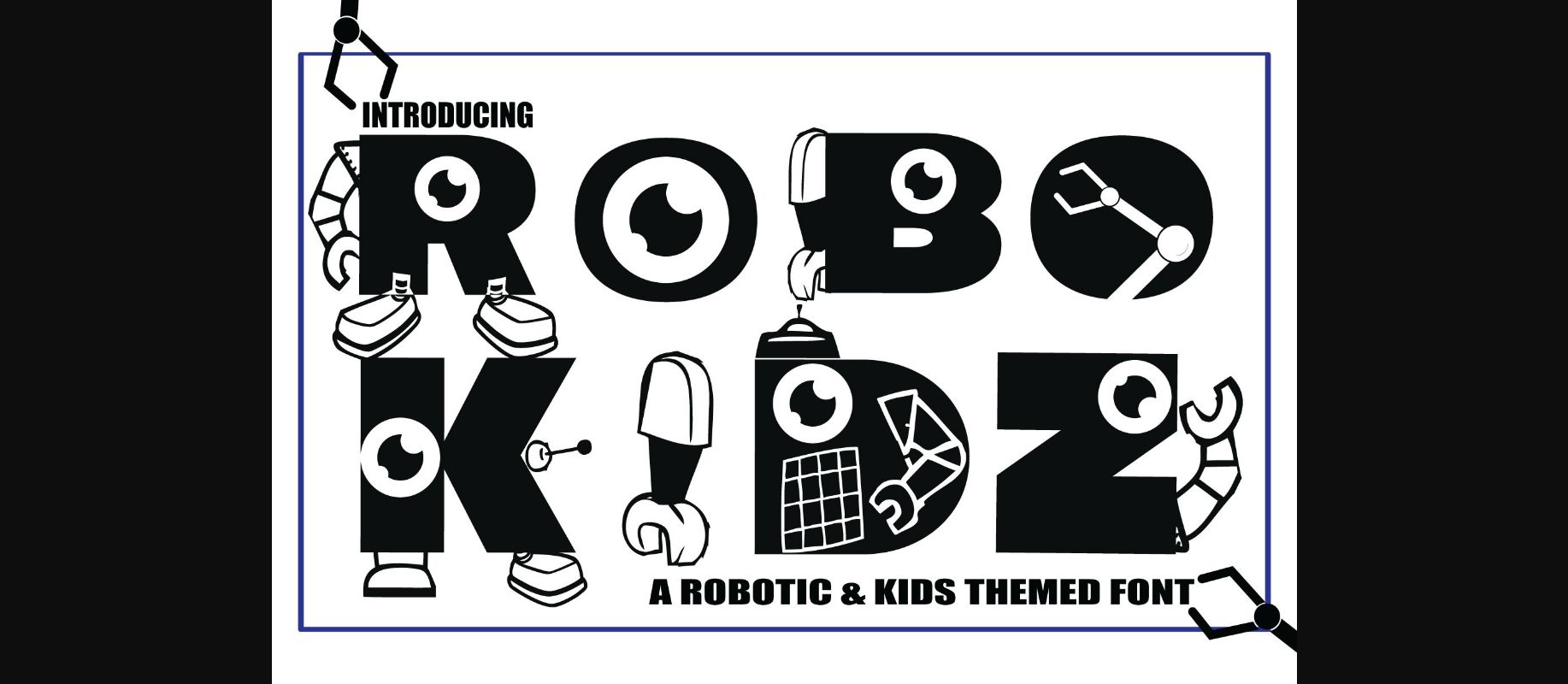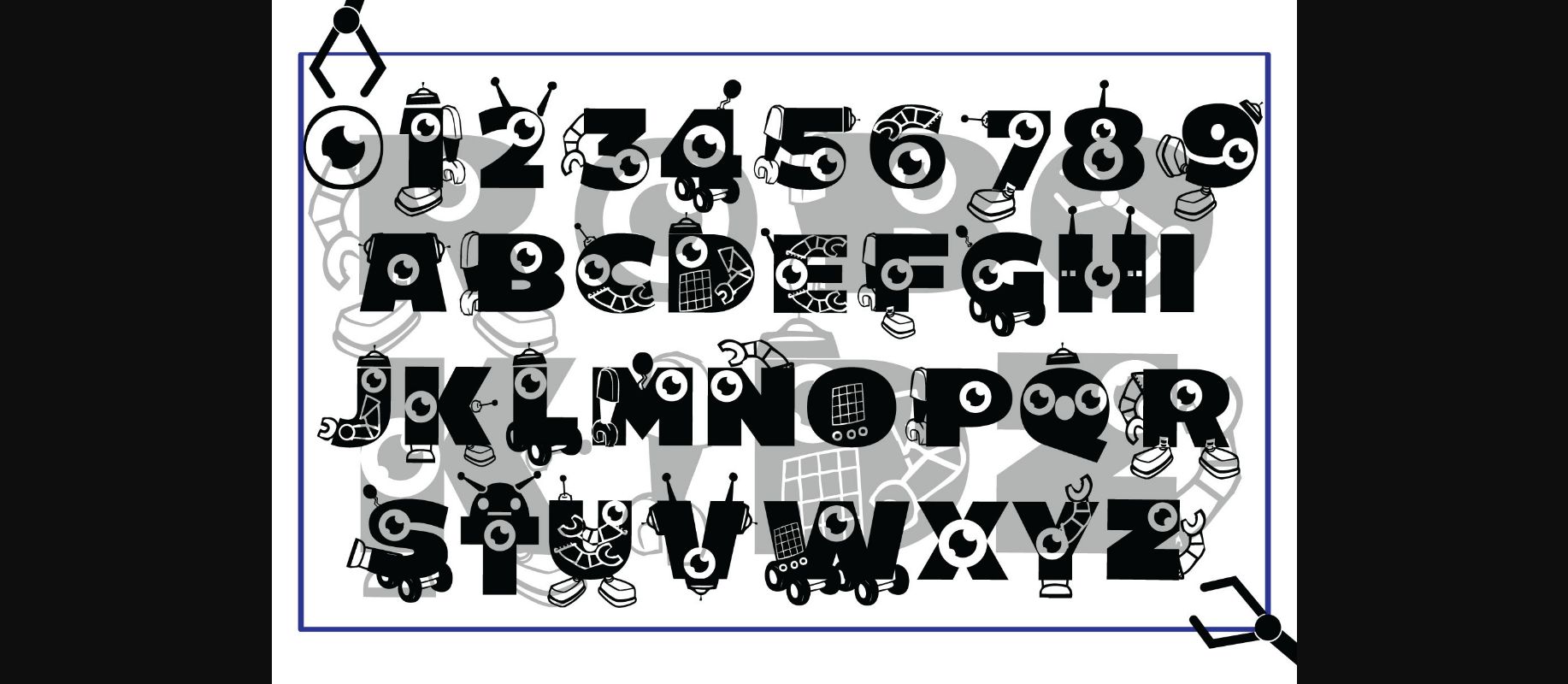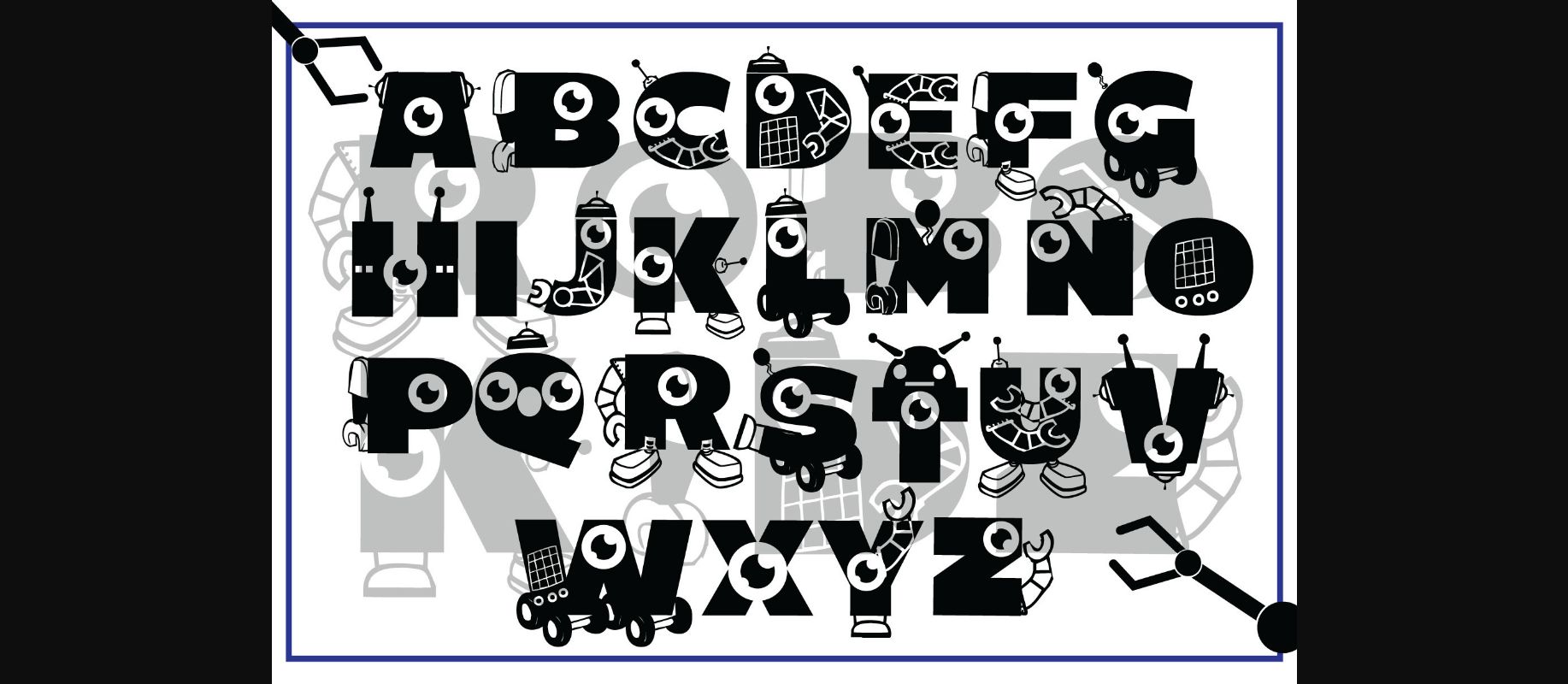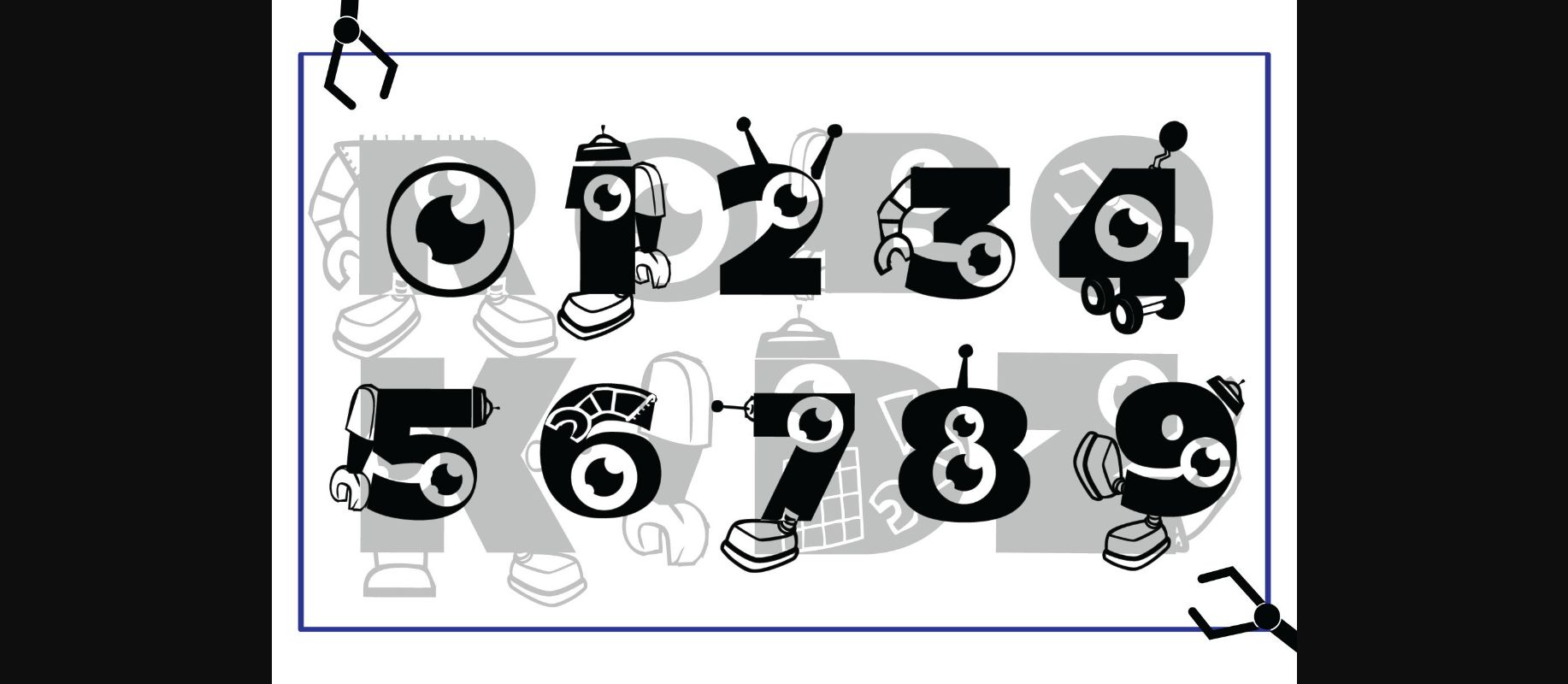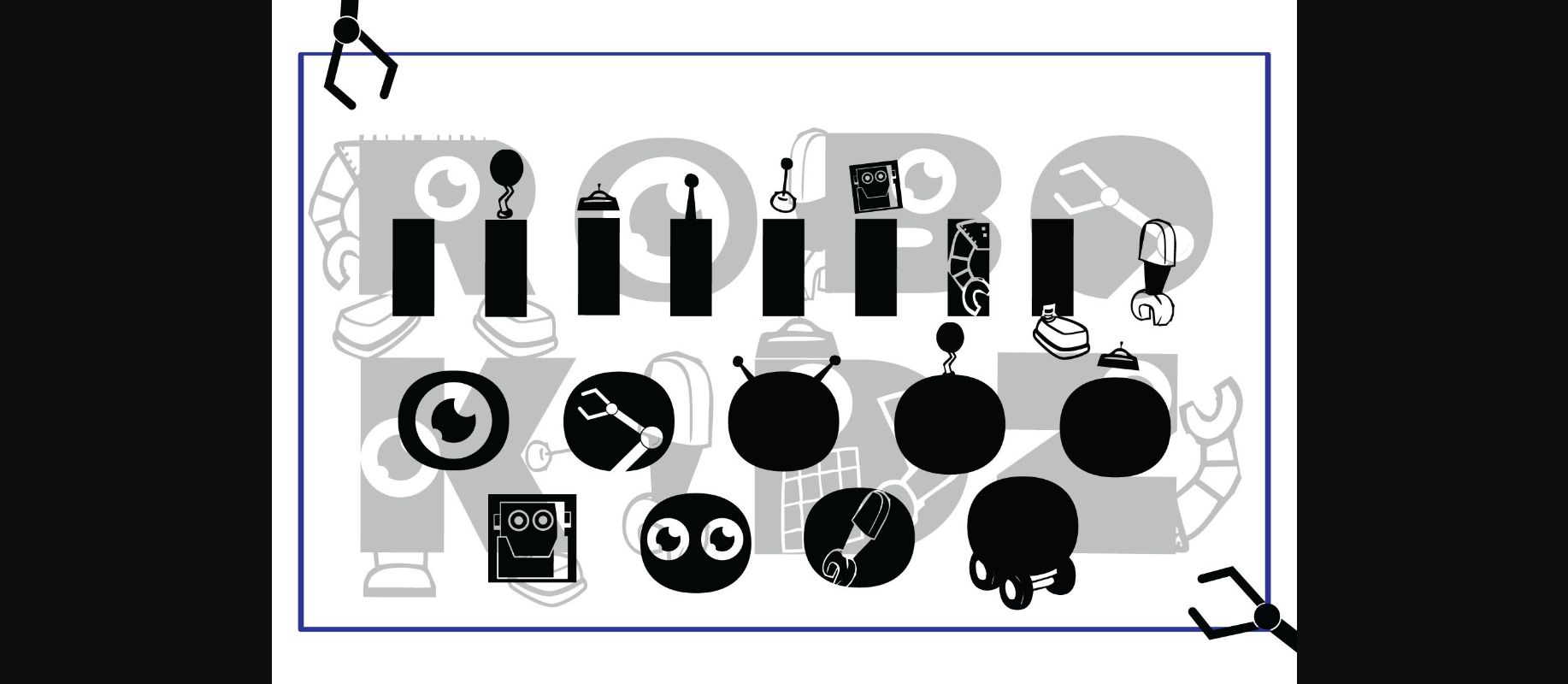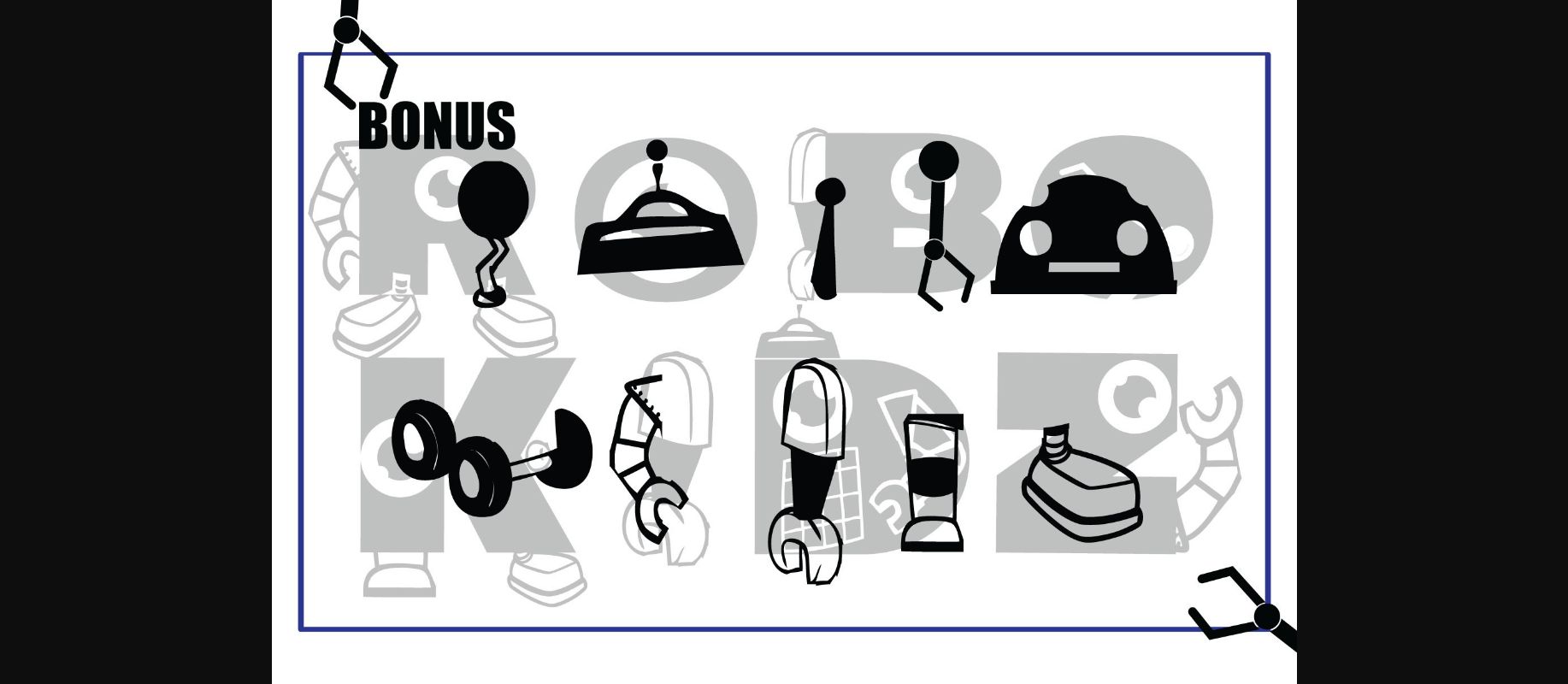
Robokidz Font
About Robokidz Font
Robokidz is a bold and incredibly cool decorative font. It can be used for various design ideas, particularly those related to children, cartoons, and games. This font is PUA encoded which means you can access all of the glyphs and swashes with ease!